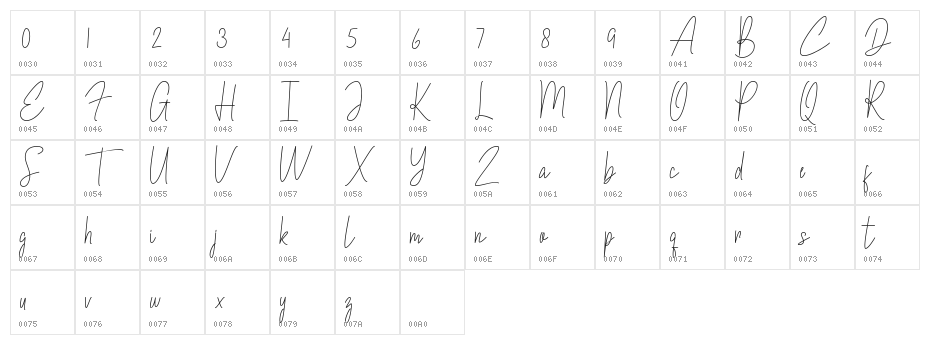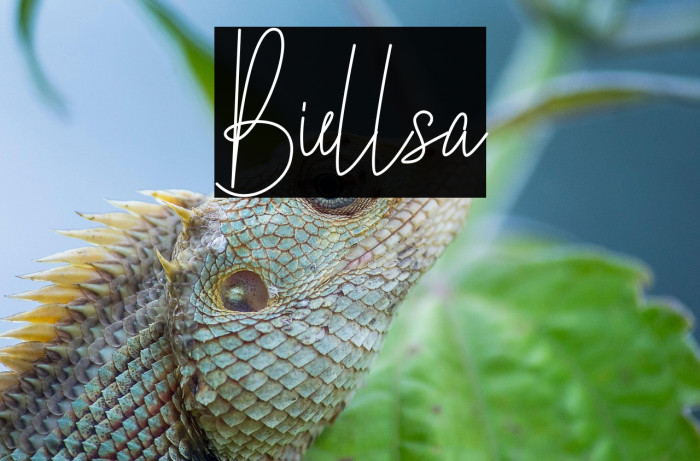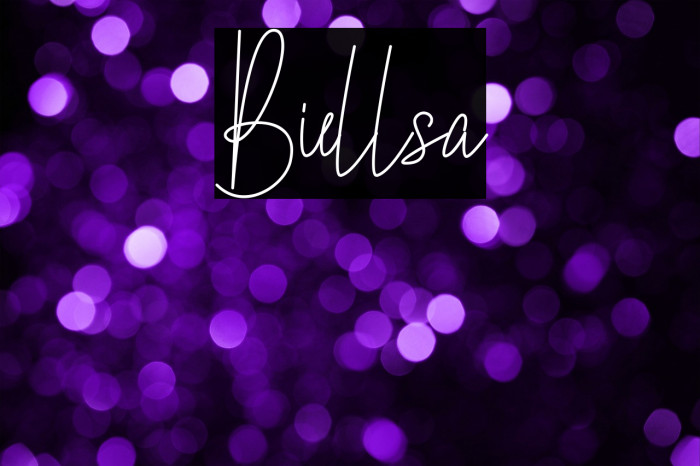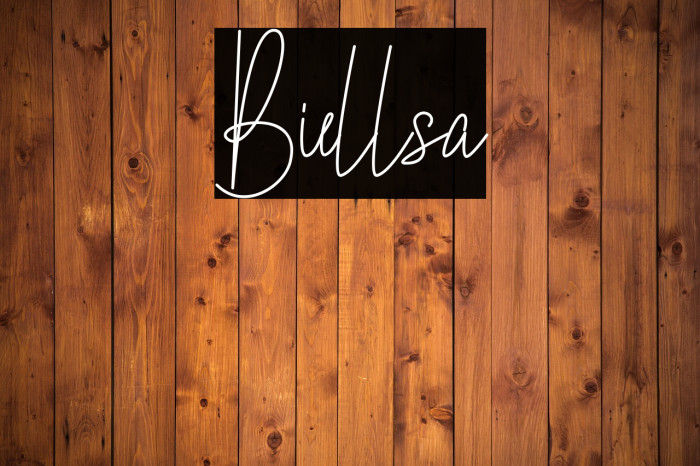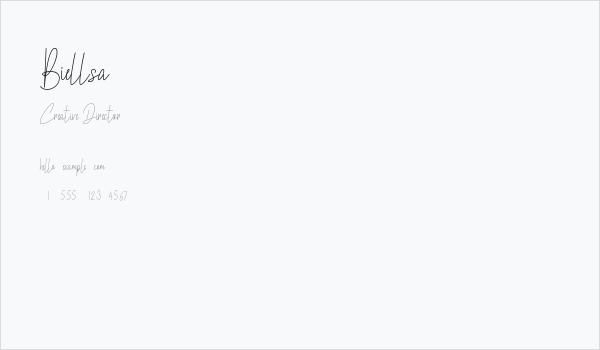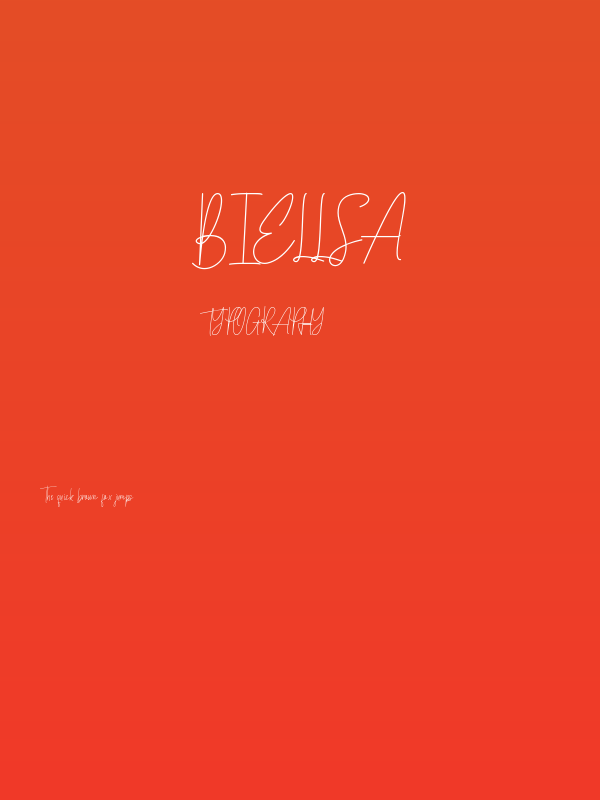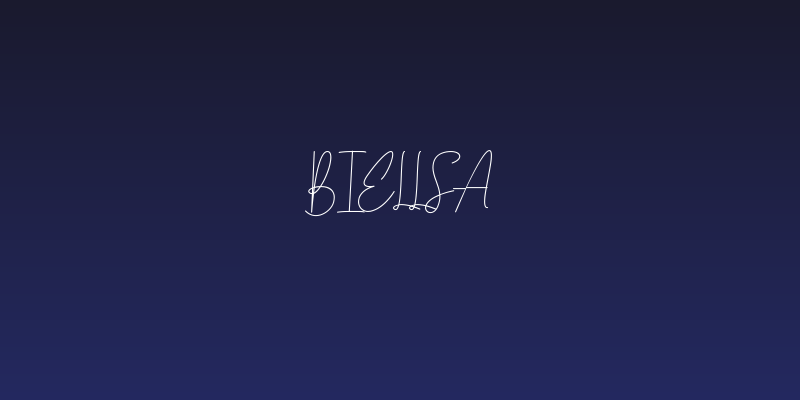
Biellsa Font
Biellsa Description
This font features a lively and dynamic handwritten style, characterized by its fluid and continuous strokes. The letters are elongated and slightly slanted, giving a sense of movement and elegance. The uppercase letters are tall and narrow, while the lowercase letters maintain a consistent flow, enhancing readability. The numbers and special characters are crafted with the same attention to detail, ensuring a cohesive appearance across all text elements. This font's playful yet sophisticated design makes it suitable for various creative applications.
| Proposed Projects | Ideal for wedding invitations, personal branding, greeting cards, and artistic projects. |